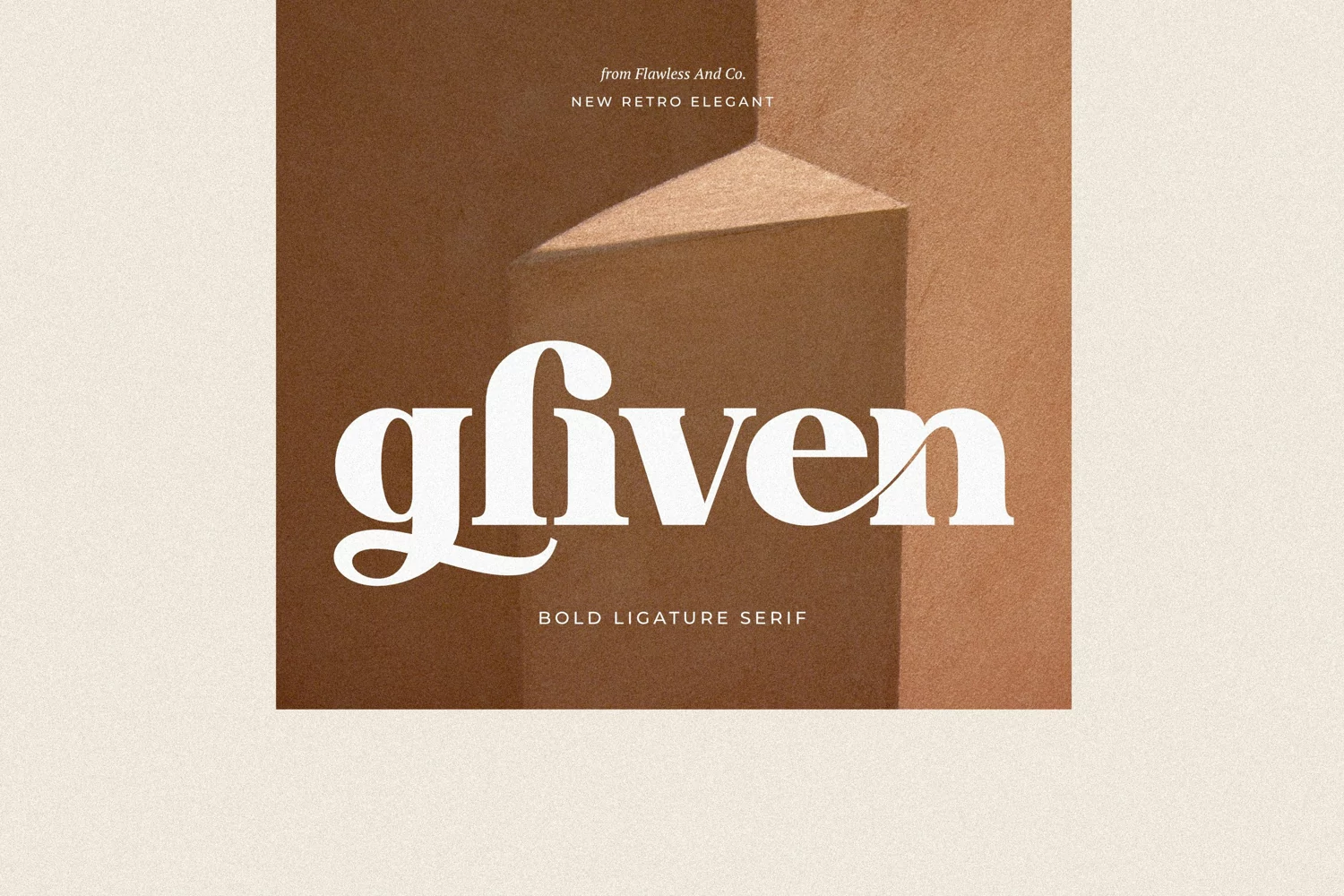
Gliven
Gliven is a Modern Serif with various alternates and ligatures, an updated blend of bohemian style.
An Original typeface that suitable for any graphic designs such as branding materials, t-shirt, print, business cards, logo, poster, t-shirt, photography, quotes .etc
This font support for some multilingual. Serif Retro that contains uppercase A-Z and lowercase a-z, alternate character, numbers 0-9, and some punctuation.